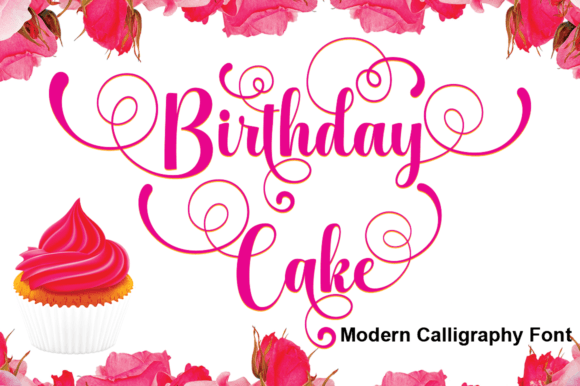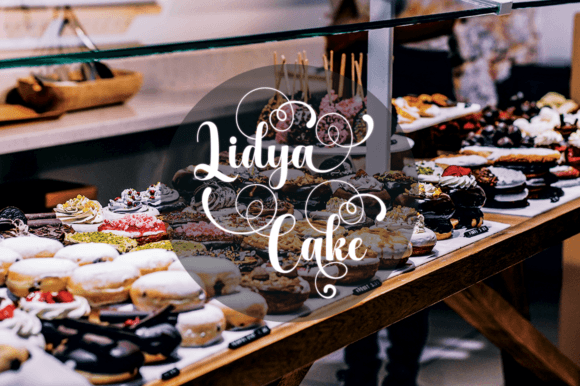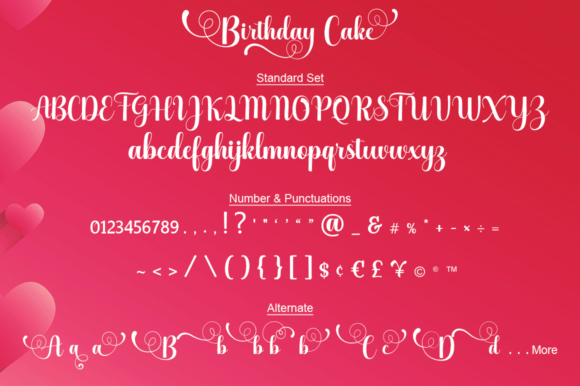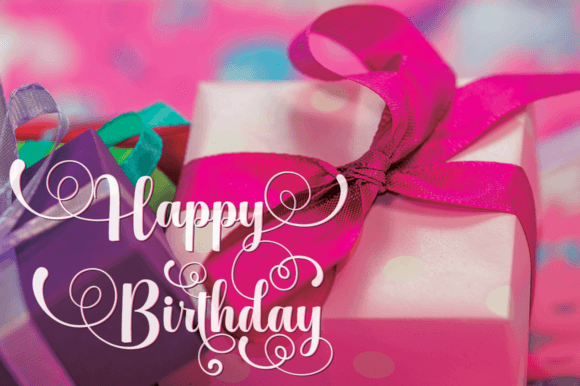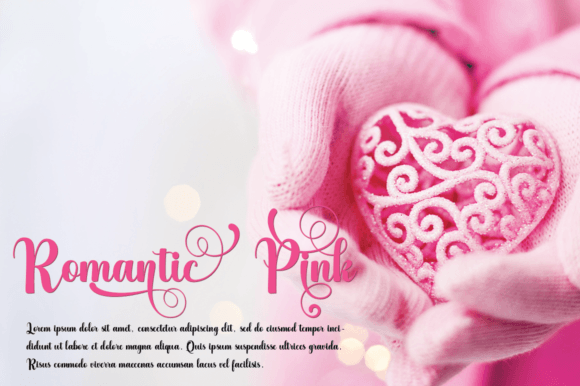
Birthday Cake Font
Birthday Cake is a beautiful and refined handwritten font. Classy and modern, it is perfect for birthday party invitations, logos, branding, invitations, stationery, wedding designs, apparel branding, and much more! Fall in love with its incredibly distinct and timeless style, and use it to create spectacular designs!